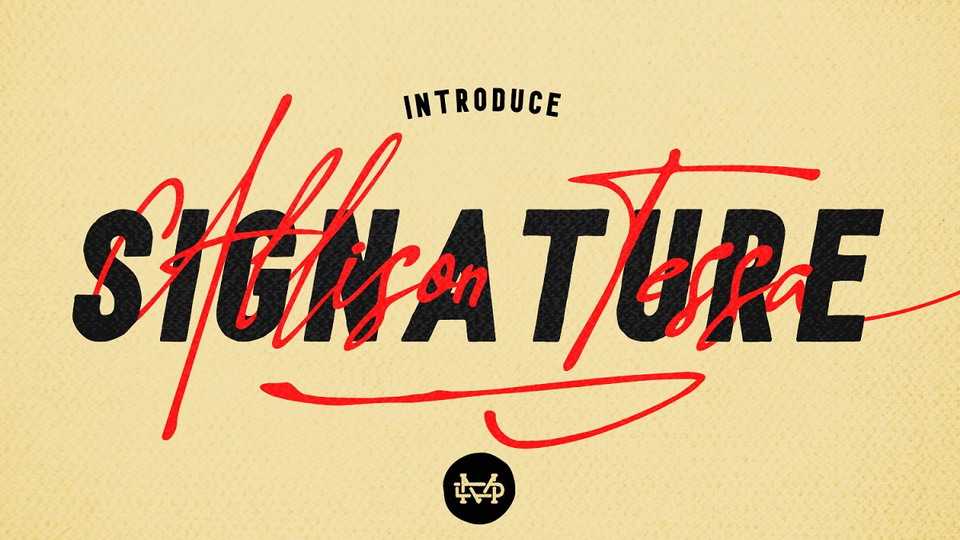
Download Allison Tessa font, a gorgeous signature script. Perfect for a poster design, book covers, merchandise, fashion campaigns, newsletters, branding, advertising, magazines, greeting cards, album covers, and quote designs and more.
Designer: TypeClassHeroes